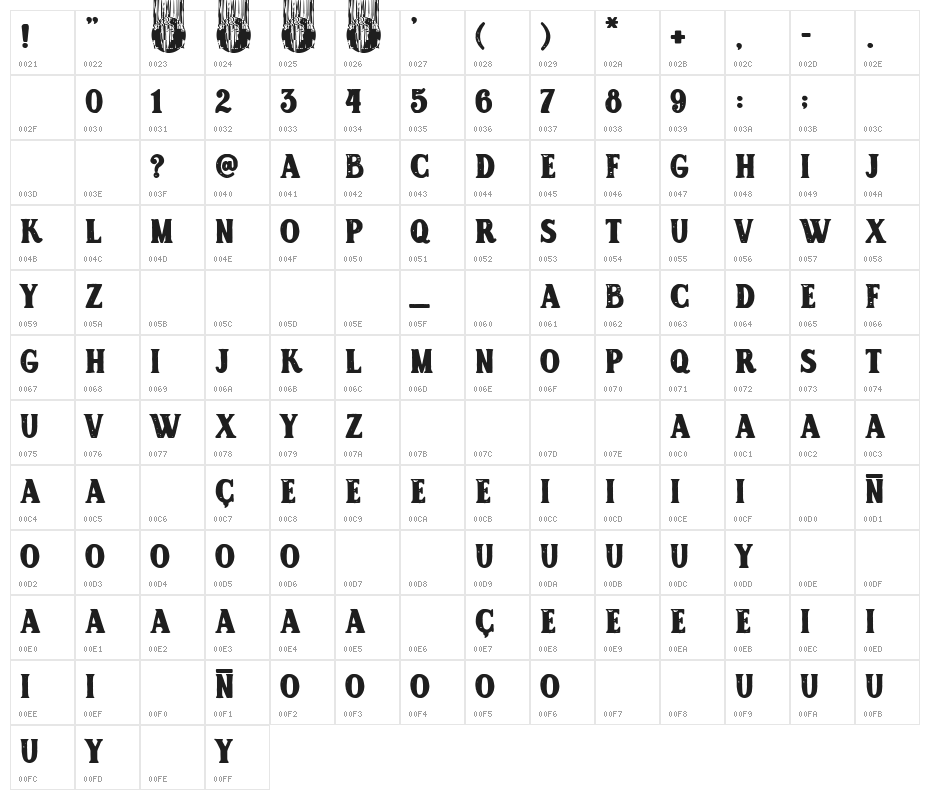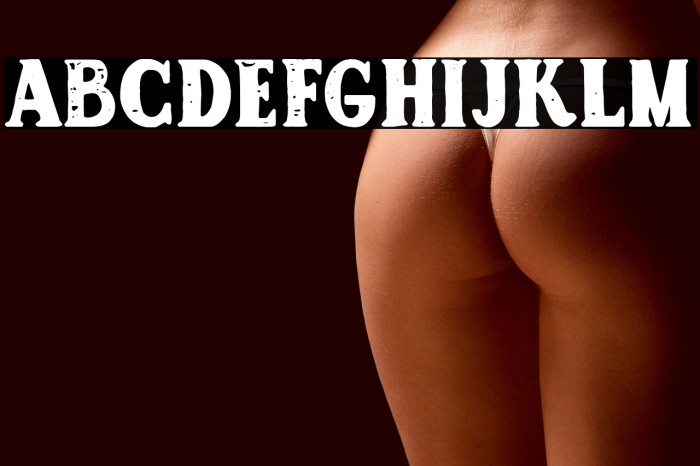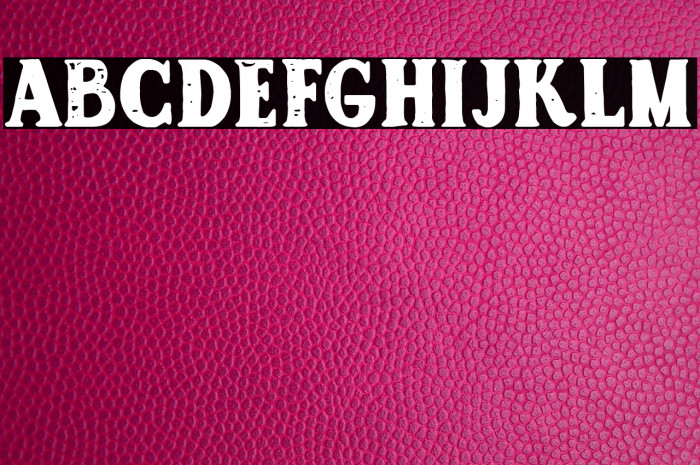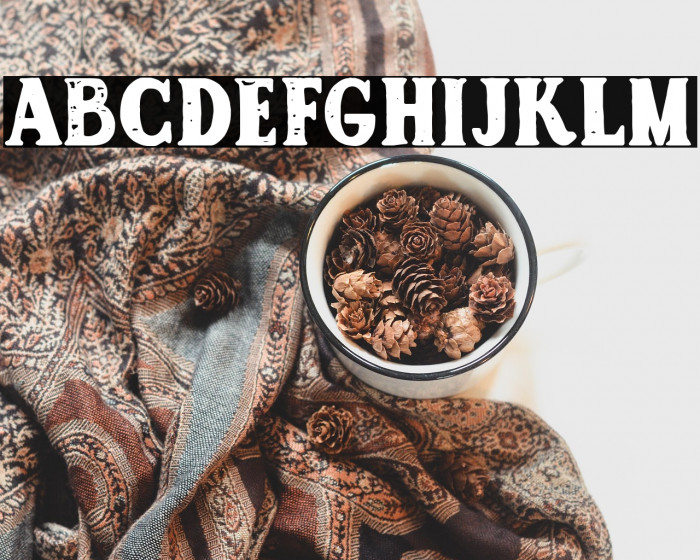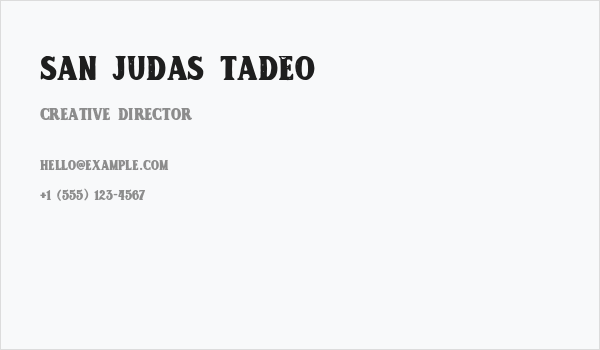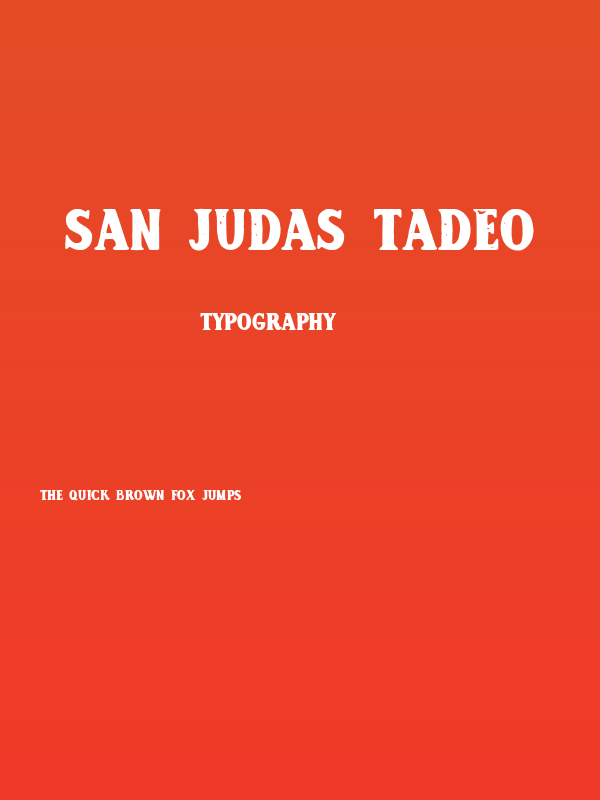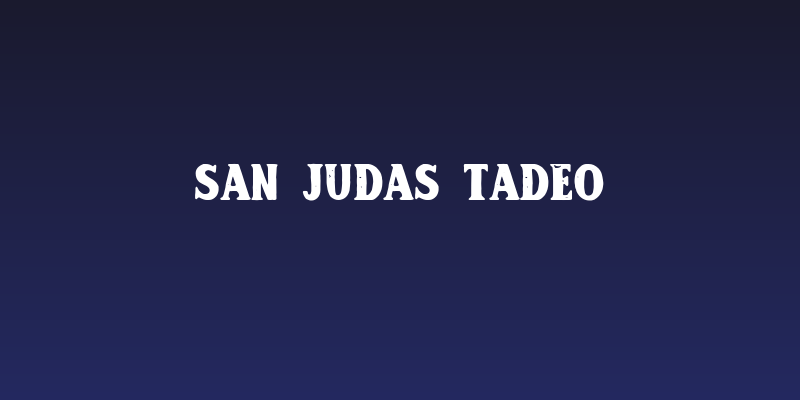
San Judas Tadeo Font
San Judas Tadeo Description
This font features a bold and rugged style with a distressed texture that gives it a vintage and worn appearance. The uppercase and lowercase letters are designed with thick strokes and slightly irregular edges, adding to its rustic charm. The numerals and special characters maintain the same distressed look, ensuring consistency throughout. This font is ideal for projects that require a strong, impactful presence with a touch of nostalgia. Its unique texture makes it stand out, making it suitable for creative and artistic designs.
| Use Case | Logos, Posters, Branding |
| Proposed Projects | Perfect for posters, logos, branding, and any design needing a vintage or rustic touch. |